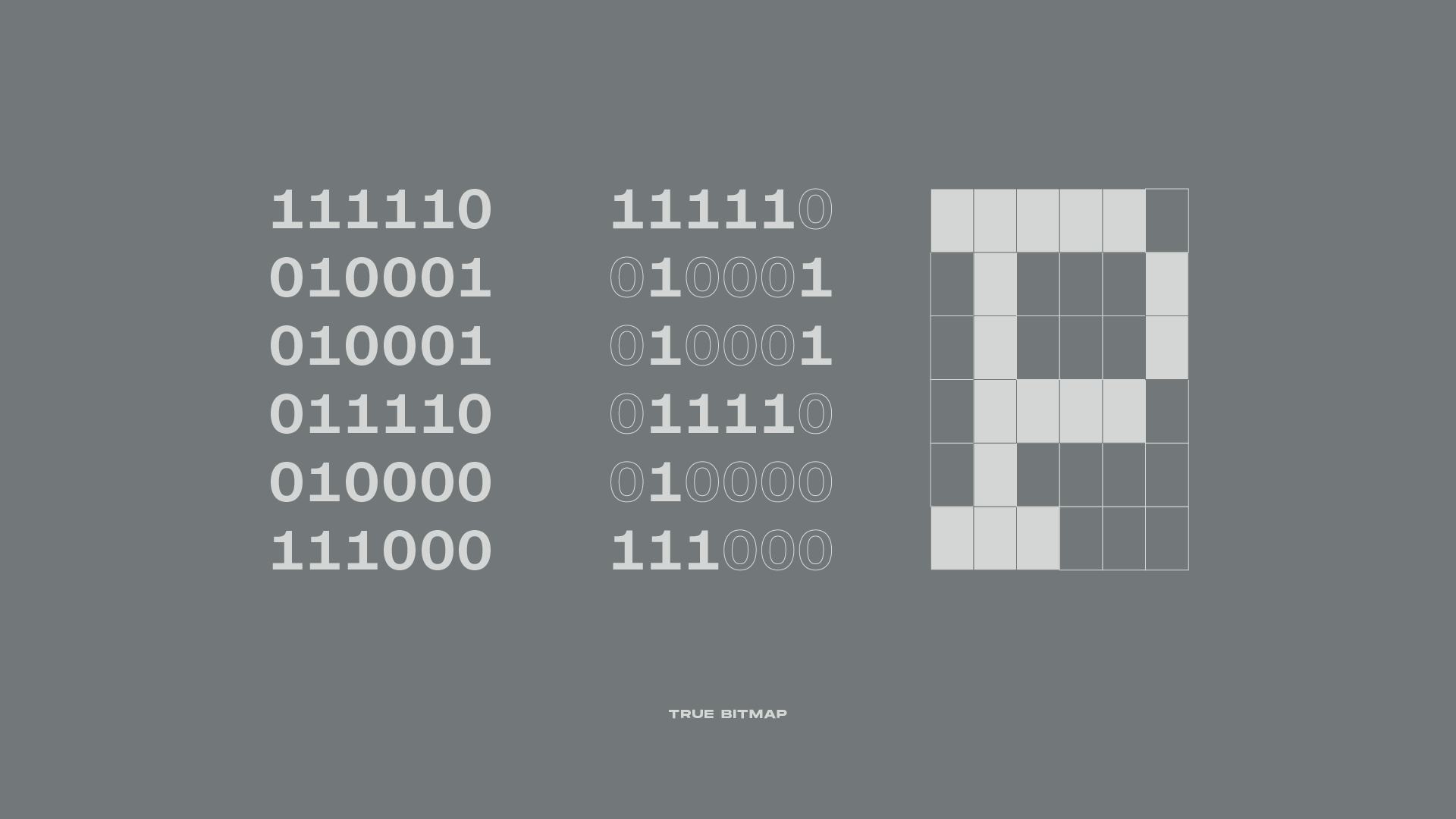
GitHub user spacerace has dumped the system fonts of more than 240 classic computers, graphics cards, and various thin clients and POS systems. We’re talking vintage gems like the IBM 5155 Personal Computer and the iconic 3dfx Voodoo3 graphics card (a video retrospective of it can be seen below.) These were extracted from the BIOS, or ROM of these older pieces, meaning that these fonts were built into the systems themselves by the original manufacturers. Unfortunately they aren’t fonts you can download to your computer and use; they're bitmap fonts.
Having no idea what a bitmap font is, I turned to our genius designer Jack Koloskus for an explanation. He told me:
The fonts that we are familiar with today are all vector based, meaning they are defined by points and handles to draw their curves. Then the system interprets those curves and draws the pixels based on what size the font is being displayed at, often adding anti-aliasing to indicate curvature where pixels might not normally be able to display curvature alone. Bitmap fonts required you defining how every pixel in a certain area was displayed, on or off. So a P would look like:
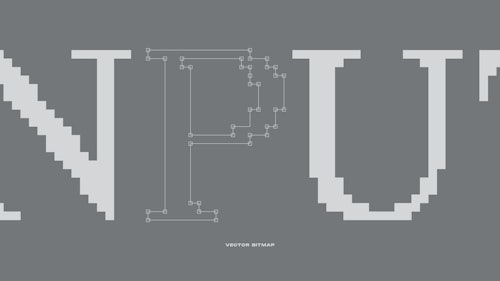
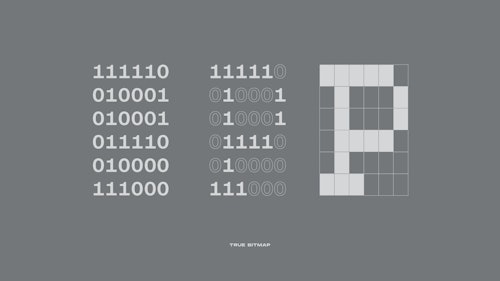
What good is it to have all these classic fonts dumped, especially when there are 8-bit-esque fonts like 8bitoperator (which was used in one of my all-time favorite games, Undertale)? Well, they show a bit of the character of the team that created them. These fonts were often the first thing you'd see on an ancient personal computer when you first powered it on. And besides, it's always good to find ways to preserve old technology. Just look at what happened with the U.S. government and COBOL.